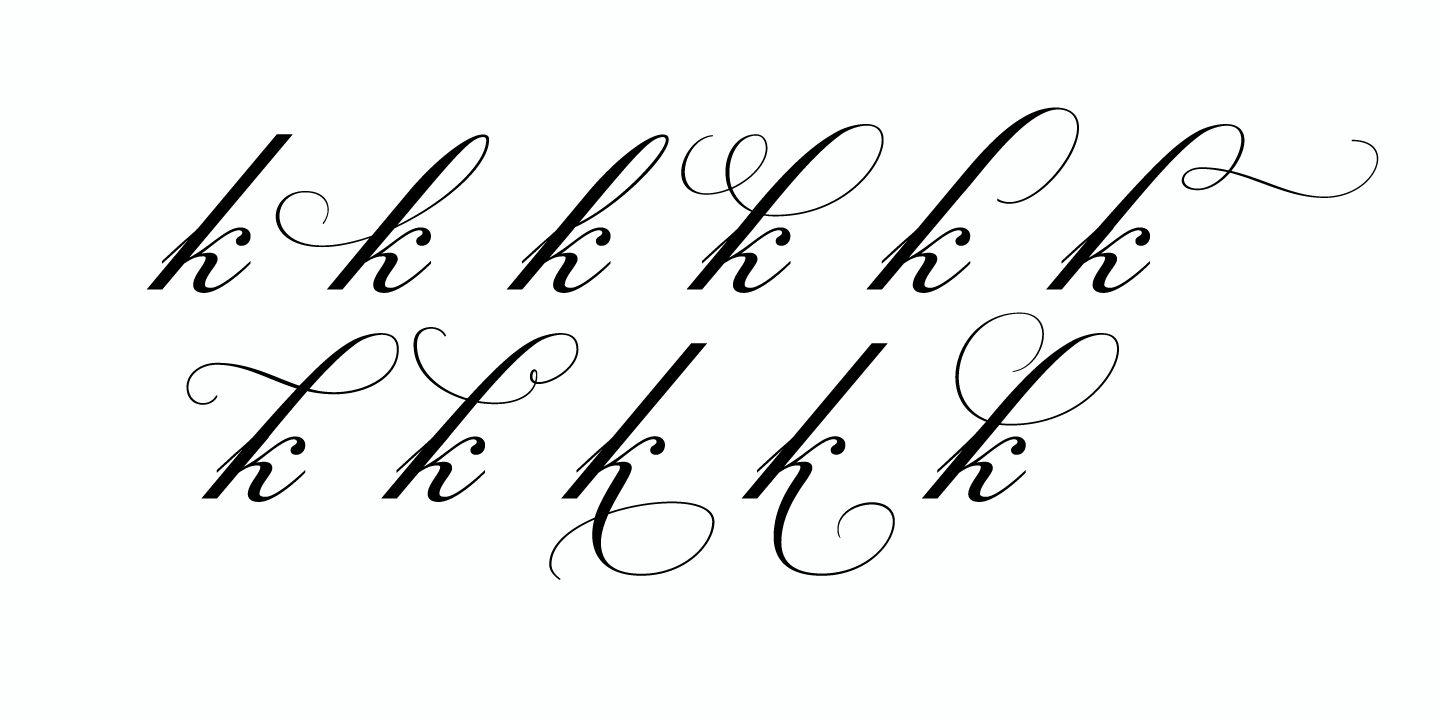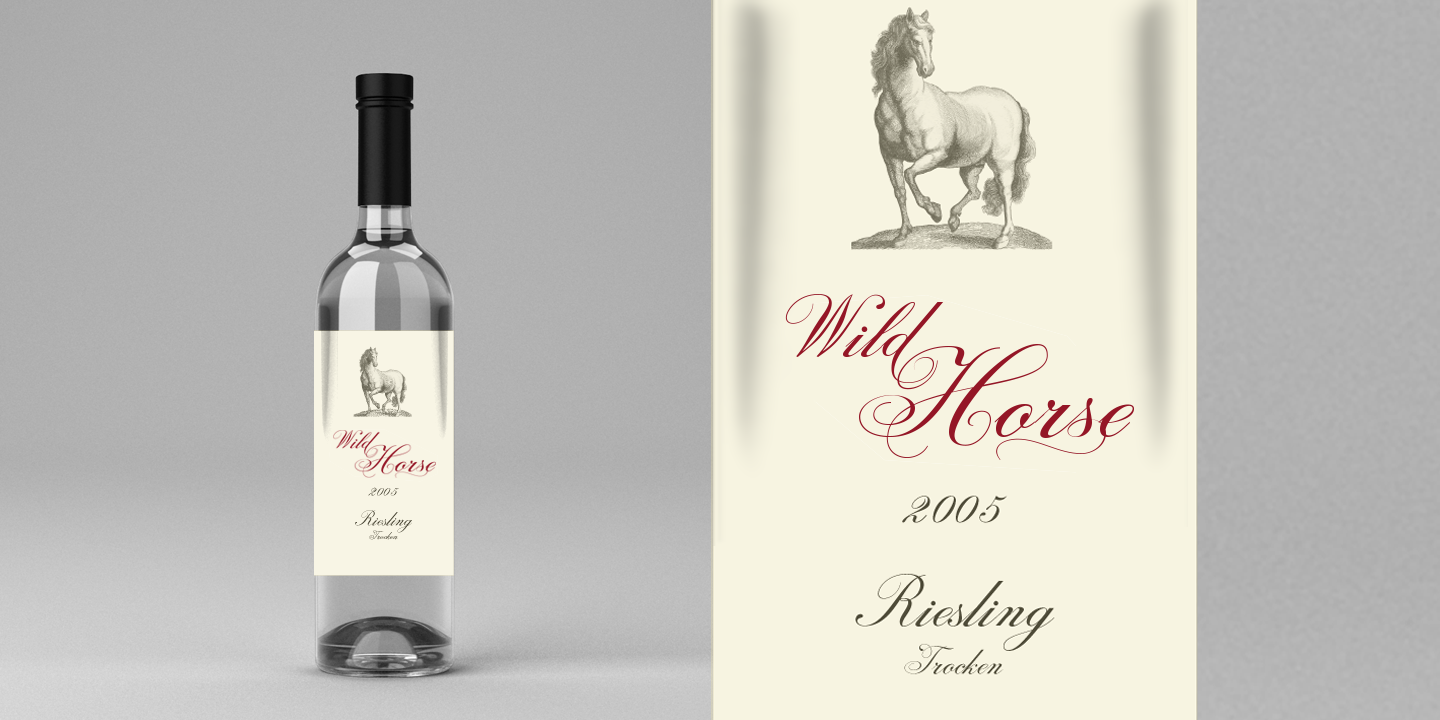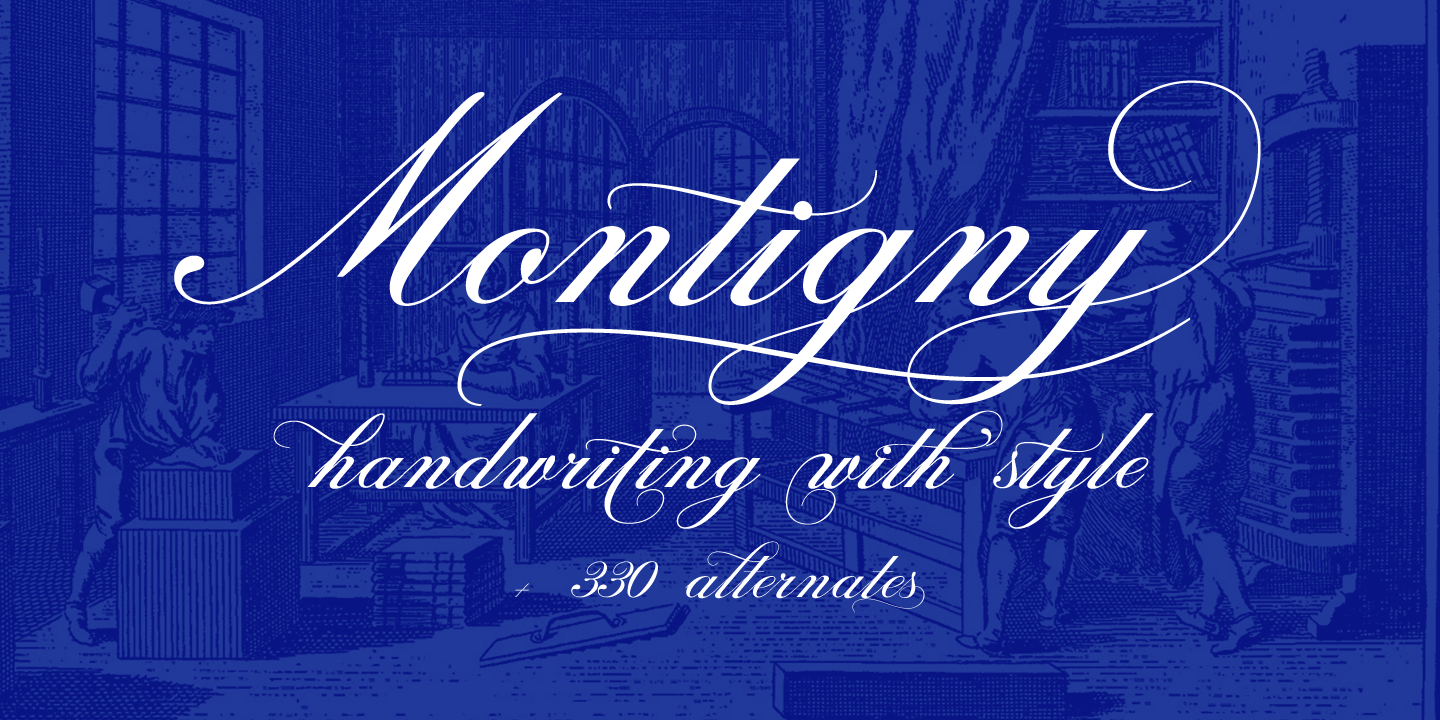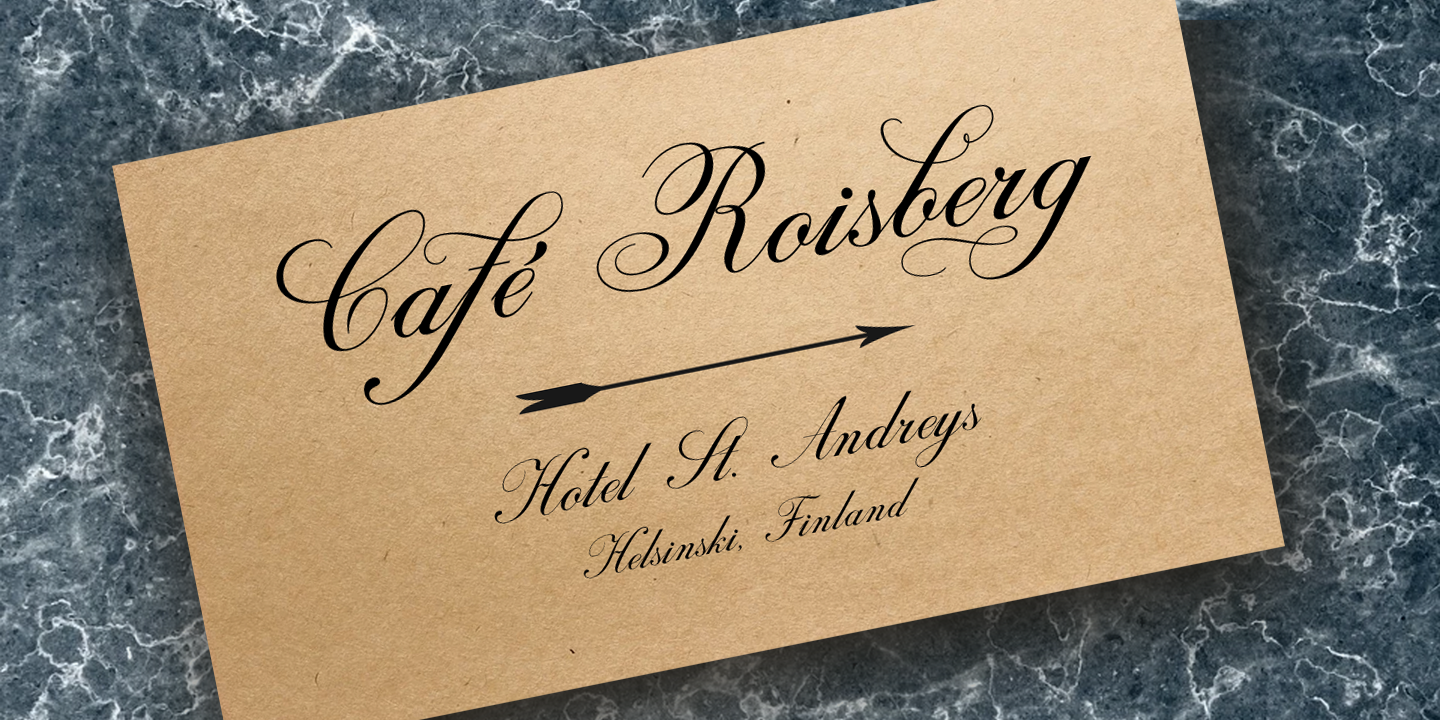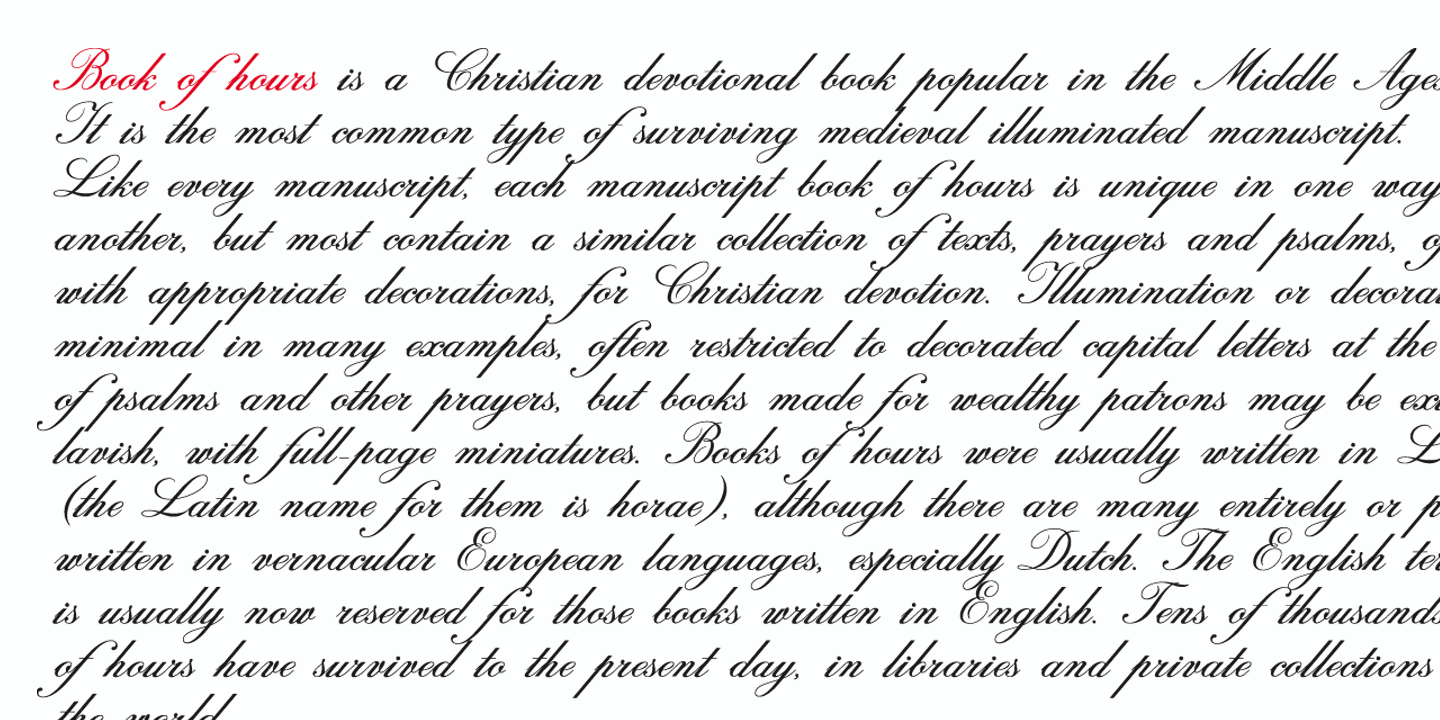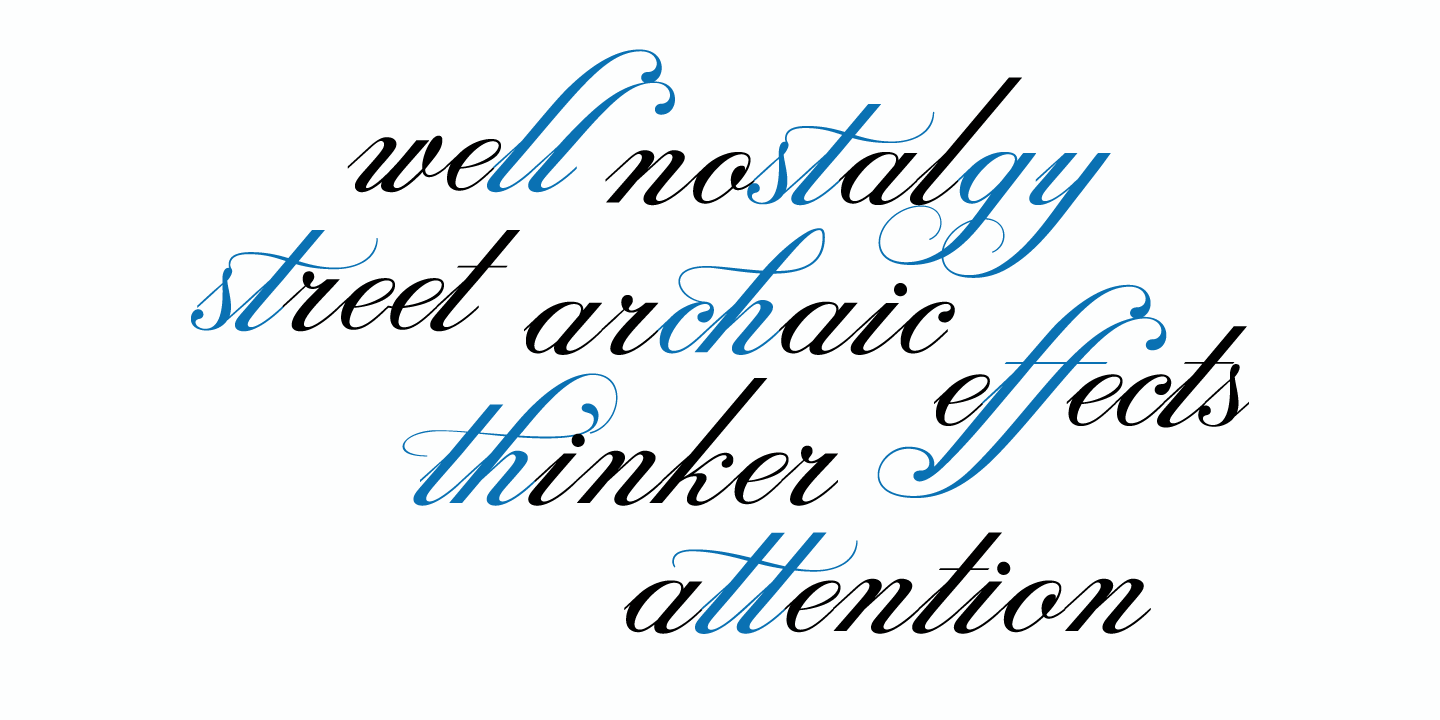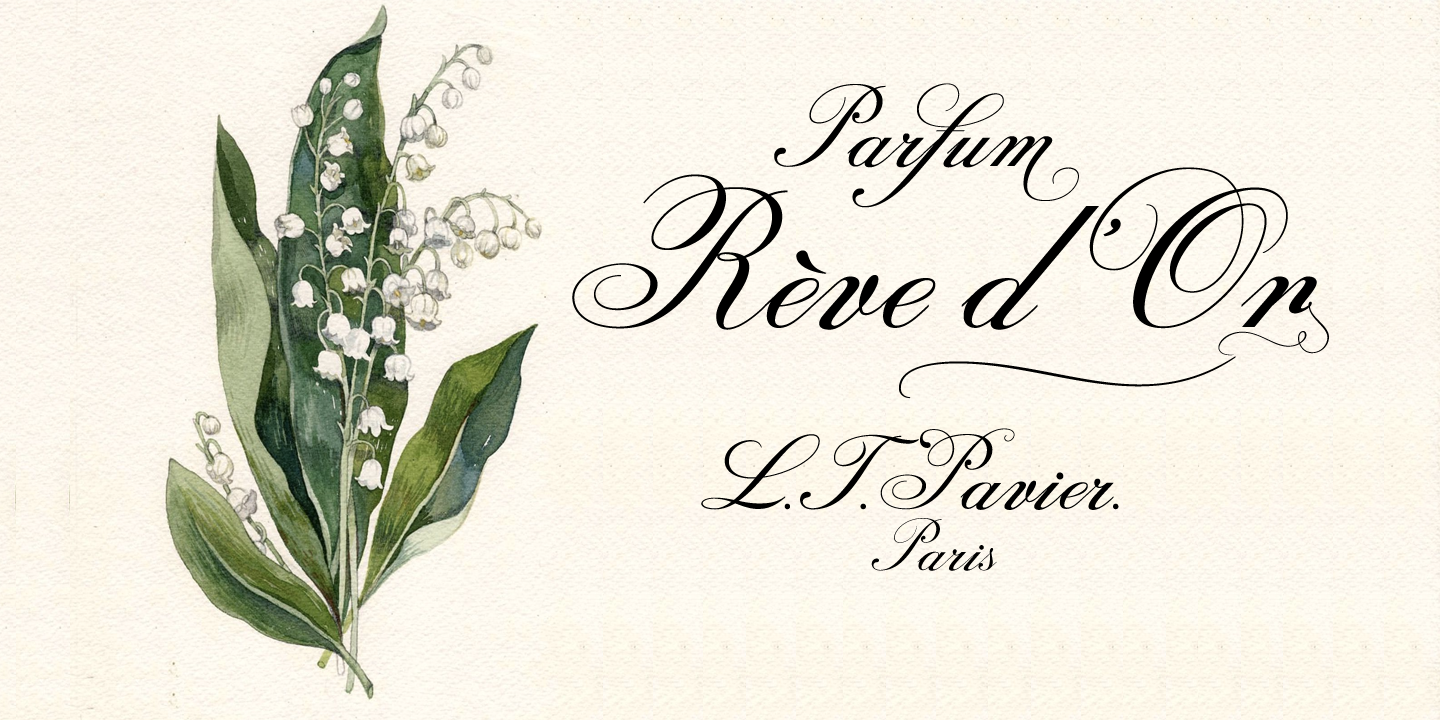
Montigny
Rooted in 18th-Century Tradition
Montigny is a contemporary calligraphic typeface rooted in the timeless elegance of 18th-century English manuscript tradition. Every curve and stroke has been meticulously crafted, with particular attention given to the fluid connection between letters. Its generous ascenders create graceful flourishes and ornamental forms that elevate any design with a touch of refined artistry.
Engineered for Readability
Despite its decorative nature, Montigny is engineered for exceptional readability, making it as practical as it is beautiful.
Extensive Alternates & Ligatures
To enhance its versatility, the font includes an extensive collection of alternates and ligatures that preserve the authenticity and spontaneity of true handwriting. These stylistic options allow designers to tailor the typeface to a wide range of aesthetics—from classic sophistication to modern expressiveness. Alternates can be applied automatically through advanced OpenType programming or selected manually for full creative control.